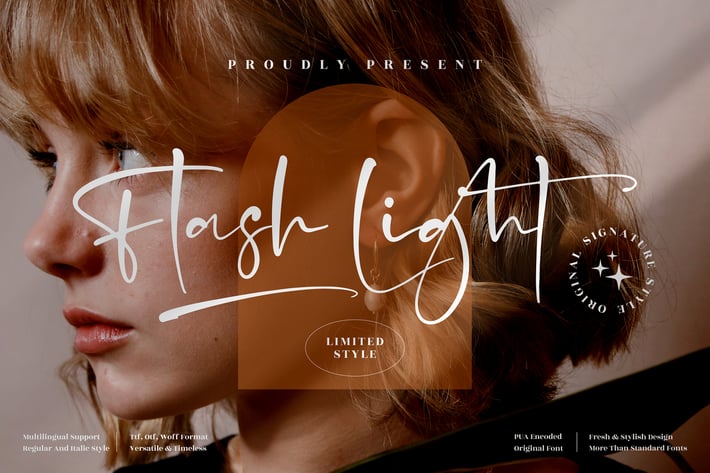
Flash Light Signature Font
Flash Light Signature is an elegant handwritten script with smooth, flowing strokes that feel personal and refined. Its chic curves and modern signature style make it ideal for feminine branding, stylish quotes, and polished social media visuals, giving every design a warm and sophisticated touch.
Modern signature script with fluid, natural strokes
Elegant, readable letterforms for logos and headlines
Handwritten feel with soft, delicate curves
Works beautifully for both digital and printed projects
Branding & logo signatures
Social media posts & story covers
Quote designs & moodboard visuals
Beauty, fashion, and lifestyle branding
Wedding invitations & stationery
Packaging, cards, and promotional materials
Soft signature elegance for modern, feminine branding.